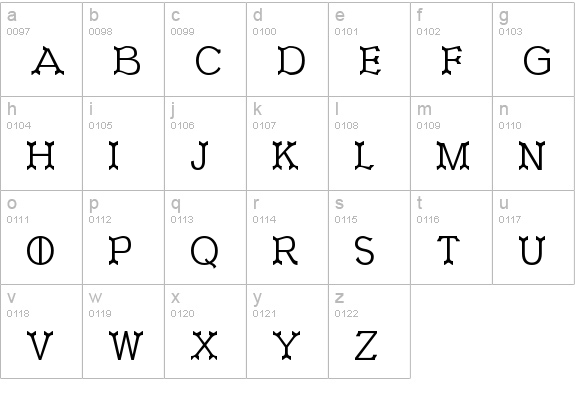
Ironworks is a bold and powerful font that exudes strength and industrial elegance. Inspired by the rugged machinery and timeless craftsmanship of traditional ironworks, this font brings a touch of nostalgia and authenticity to any design project. With its sturdy letterforms and intricate detailing, Ironworks is perfect for conveying a sense of reliability and durability. Whether used for logos, headlines, or signage, this font commands attention and instills a sense of trust in its audience. But what sets Ironworks apart is its accessibility. This remarkable font is not only visually striking, but it is also completely free. That's right, you can freely download Ironworks at FontsMarket.com, a trusted source for high-quality fonts. This means that designers, artists, and enthusiasts alike can now access this remarkable typeface without any cost or restrictions. Imagine the possibilities – from creating eye-catching posters to designing captivating websites, Ironworks offers limitless potential. So why wait? Don't miss out on this opportunity to enhance your designs with the robust and captivating charm of Ironworks. Download it for free today at FontsMarket.com and let your creativity soar to new heights.